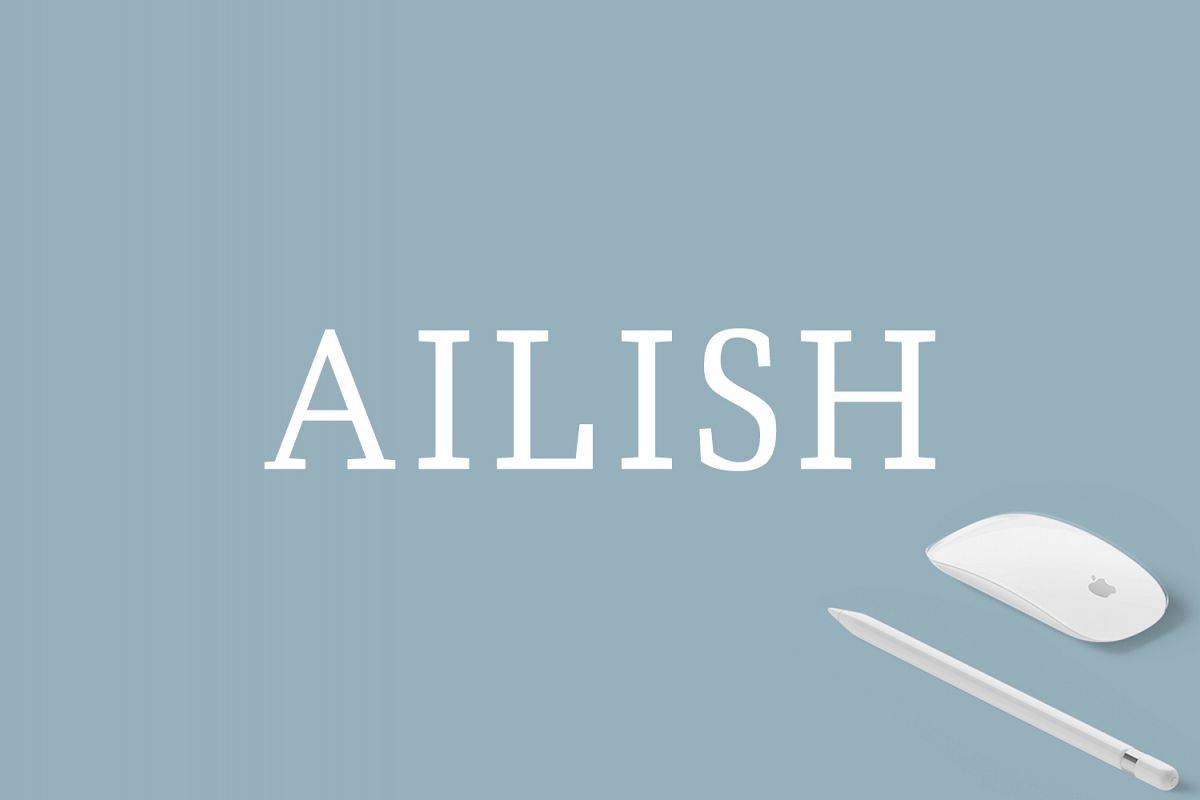
Ailish Slab Serif 3 Font Family
Ailish-Regular
Ailish-Thin
Ailish-Ligh
Ailish Slab Serif Typeface is a set contains 3 Weights and it is good for making creative displays. It’s a lovely and unique slab serif font in our store, allowing you to make each word look completely stylish! It Suits best for modern / clean designs, logos, headlines, banners and templates etc. It looks gorgeous in all caps with a wide-set spacing if you want to try a classy look, or beautiful on its own in capital and lowercase letters for something completely timeless.
• Regular, Light and Thin Weights
Ailish Font Features:
• Uppercase Multilingual Letters
• Lowercase Multilingual Letters
• Alternative